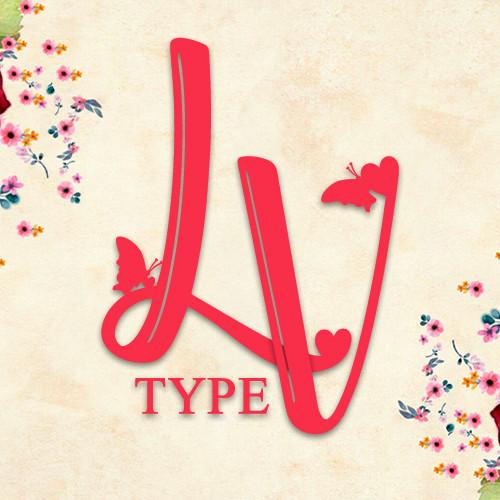
Beauty Flower Font Description
Beauty Flower is a sweet and romantic handwritten font, featuring a unique design element in an authentic look that will add a personal and realistic feel to your designs. This font will definitely enhance your future craft or design projects from Valentine’s Day onwards!